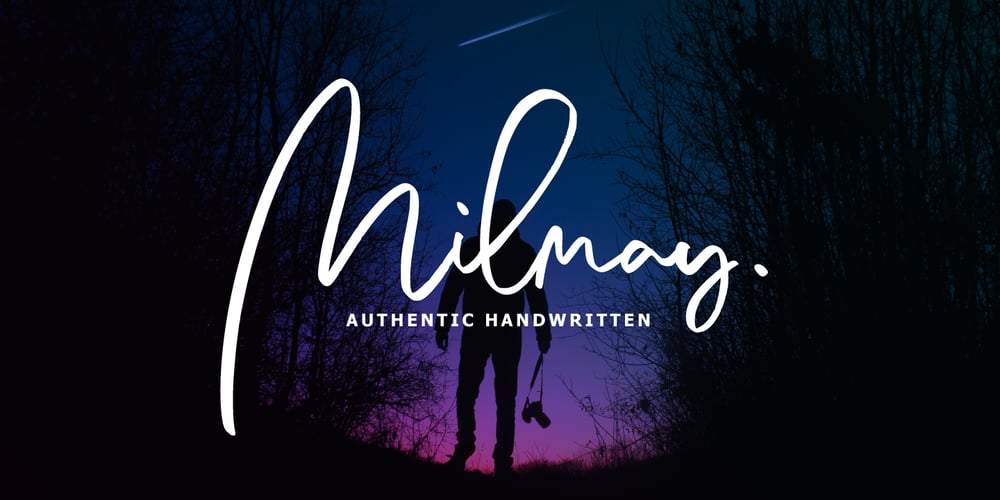
Milmay Brush Font Family was designed by Ferdiansyah and published by ijemrockart. Milmay Brush contains 1 styles and family package options. Milmay Brush is handmade script font with stunning characters. Ideal for logos, name tag, handwritten quotes, product packaging, merchandise, social media & greeting cards. It contains a full set of lower & uppercase letters, a large range of punctuation, numerals, and multilingual support.The font also contains several alternatives for lowercase characters, accessible in the Adobe Illustrator Glyphs panel, or under Stylistic Alternates in the Adobe Photoshop OpenType menu. But If you don’t have any opentype specific software, you can still use Collatin as is with its standard lowercase and uppercase letters.Thank You.